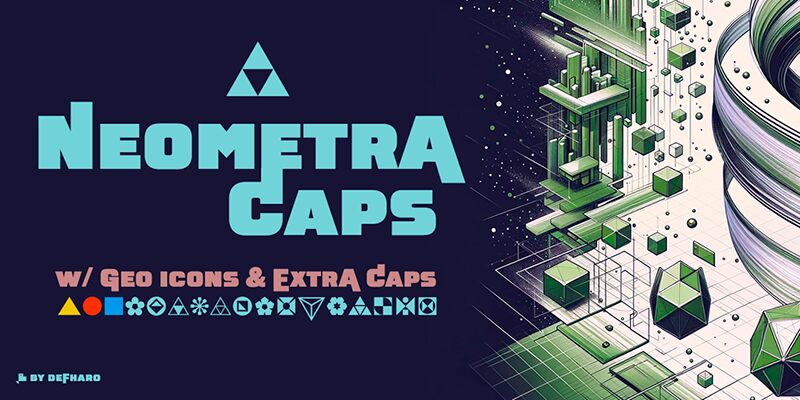
Neometra Caps Black font by Fernando Haro of deFharo is a futuristic, geometric display font with clean lines and a minimalist design. This bold sans serif font adopts a modern aesthetic which balances easy readability with an eye-catching appearance. While some letters feature curved edges, others have always sharp angles, almost square-shaped. Each letter screams dominance while naturally remaining sophisticated in one way or another.
Neometra Caps are a new sans serif fonts, extremely thick and square in proportion, designed to stand out in any graphic project. With 784 glyphs, 31 geometric icons, 52 alternative capitals, multiple sets of numbers, and advanced Open Type features, Neometra Caps ensures superior readability and distinctive style, ideal for unique titles, logos, packaging, and more.